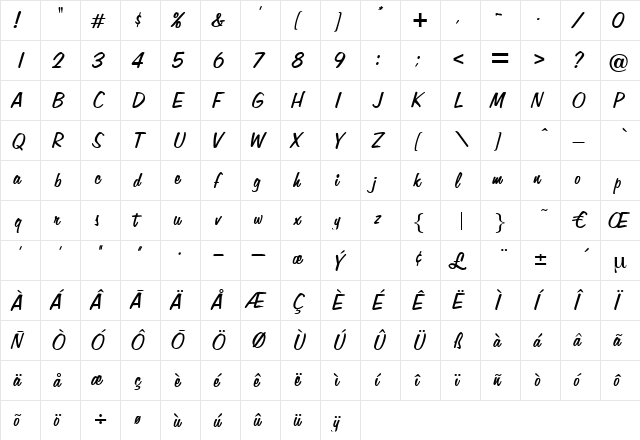
Jonathan Regular
Design Context for Jonathan Typeface
Jonathan is a composed and adaptable typeface that performs quietly and consistently across a wide range of design contexts.